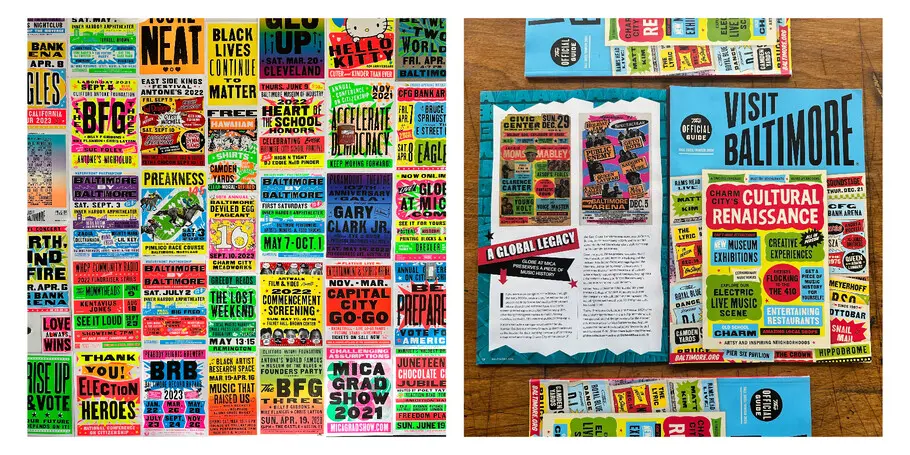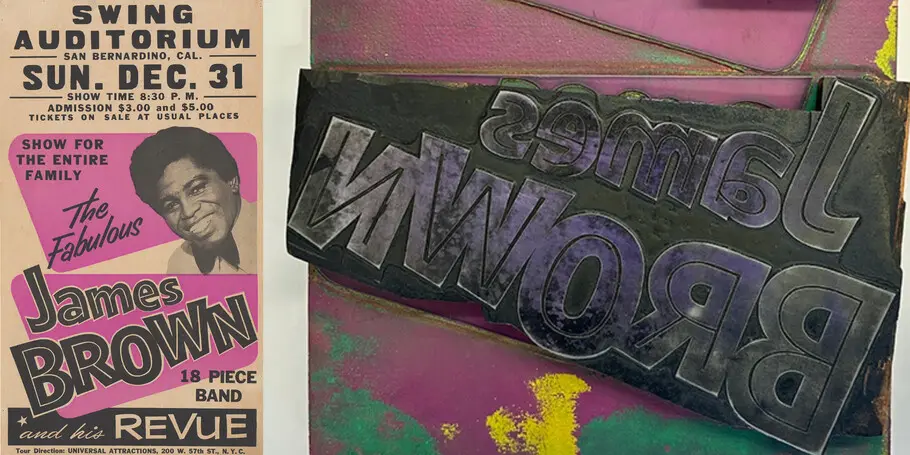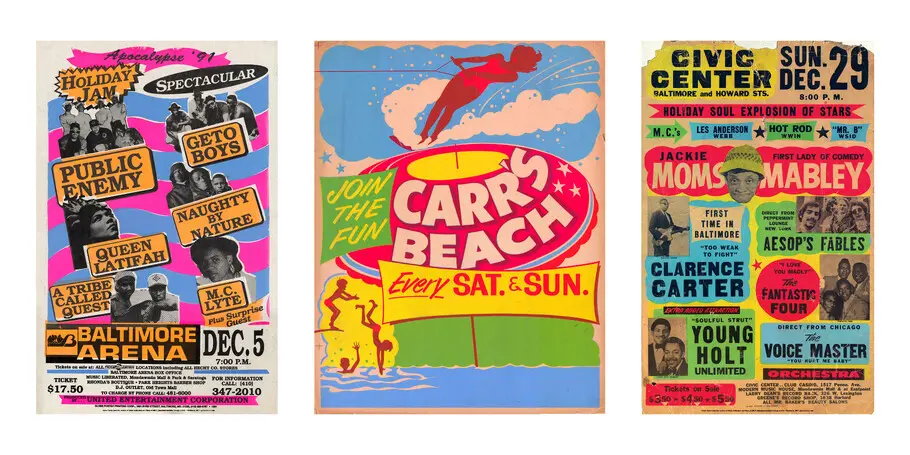
For decades, the bright colors and bold type of the Globe Press formed the cultural heartbeat of Baltimore. From R&B shows and rock concerts to boxing matches and, now, something called a Deviled Egg Pageant (???), Globe’s unmistakable style shouted out a range of events and brought color and electricity to the urban landscape.
The Globe and its archive are now part of the Maryland College Institute of Art (MICA), and we sat down with Allison Tipton from MICA to discuss the living legacy of this landmark print shop.